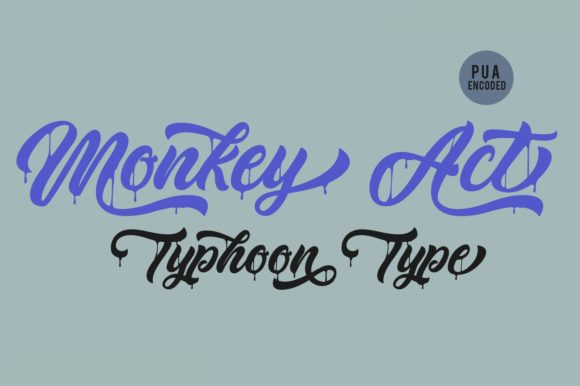
Monkey Act Font
About Monkey Act Font
Monkey Act feels playfully nostalgic and delivers an incredible vintage aesthetic. Use this gorgeous and unique handwritten font to bring any DIY project to life!